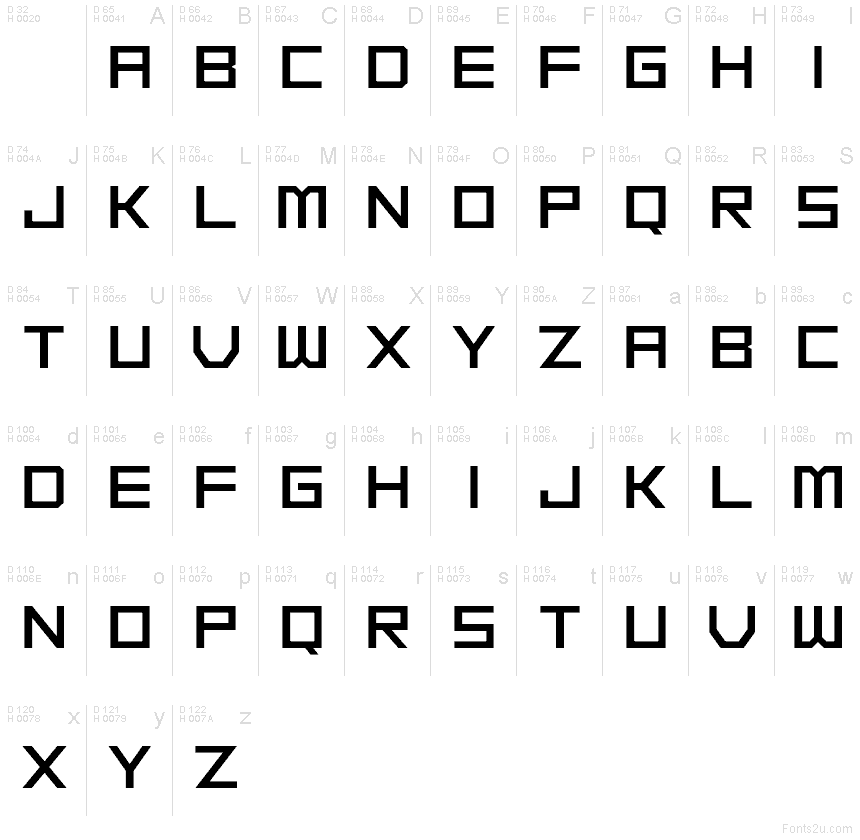
Platformz Extravagant Regular
Platformz Extravagant font by Vladimir Nikolic is an intriguing expanded techno display font that embodies a modern essence. Built with clean lines, geometric shapes, and a structured look, this contemporary sans-serif combines professionalism with creativity for the best balance. It is inspired by the fourth industrial revolution which focuses on futuristic ideas, automation, IoT (Internet of Things), and cyber-physical systems.
Thus, Platformz Extravagant is the go-to option whenever you wish to showcase sophistication through ad copies, packaging designs for home appliances/gadgets/products (toothbrushes/perfumes/makeup), online publications about future developments and tech innovations among others. The free font works for business cards too!